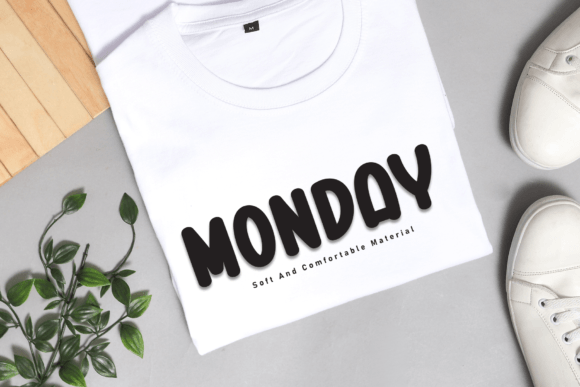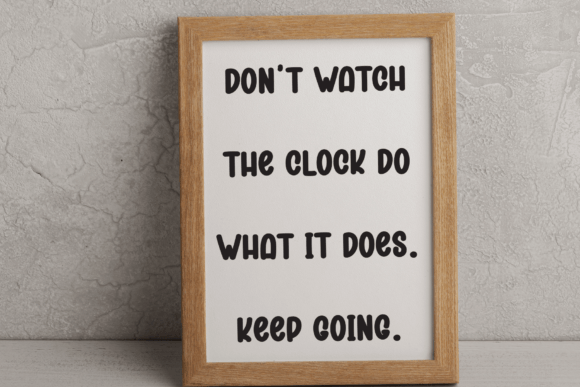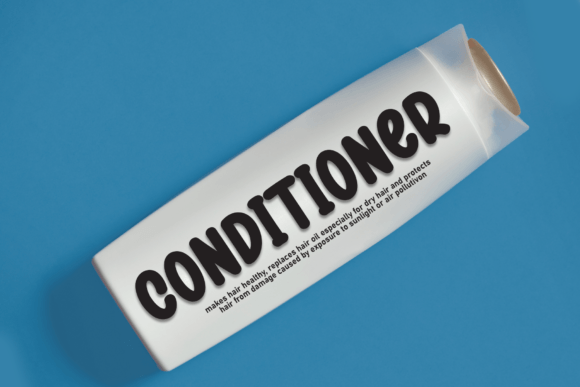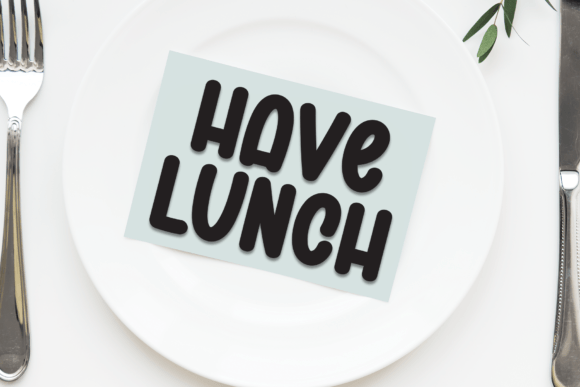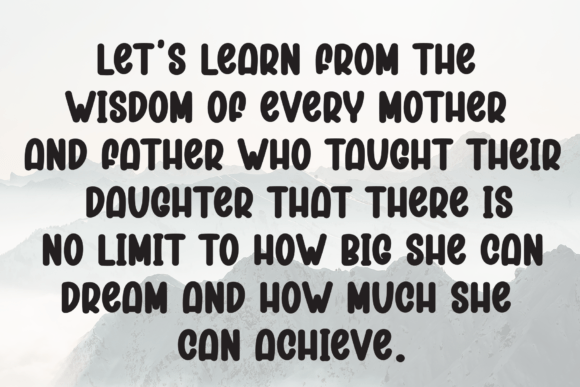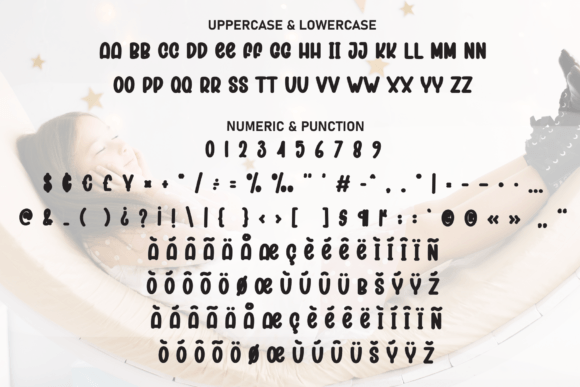
Introduction to Dream Christmas Font
Dream Christmas is a fun, bold handwritten font that captures the joy and magic of the holiday season.
Perfect for festive designs, it adds a warm, personal touch to your Christmas cards and decorations .
Dream Christmas Font offers exceptional quality and versatility, making it a valuable addition to your design toolkit. Whether you’re creating for personal projects or commercial use, Dream Christmas Font delivers professional results.